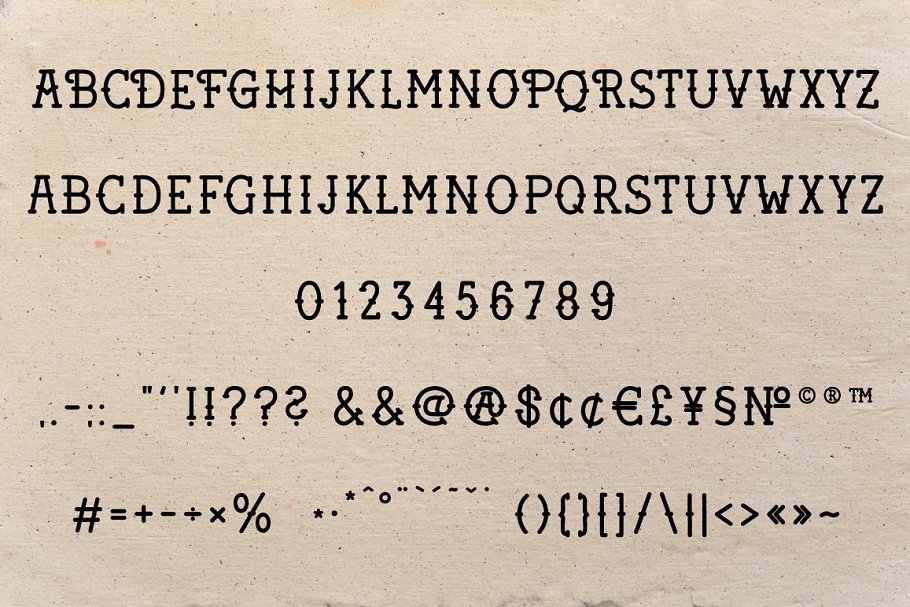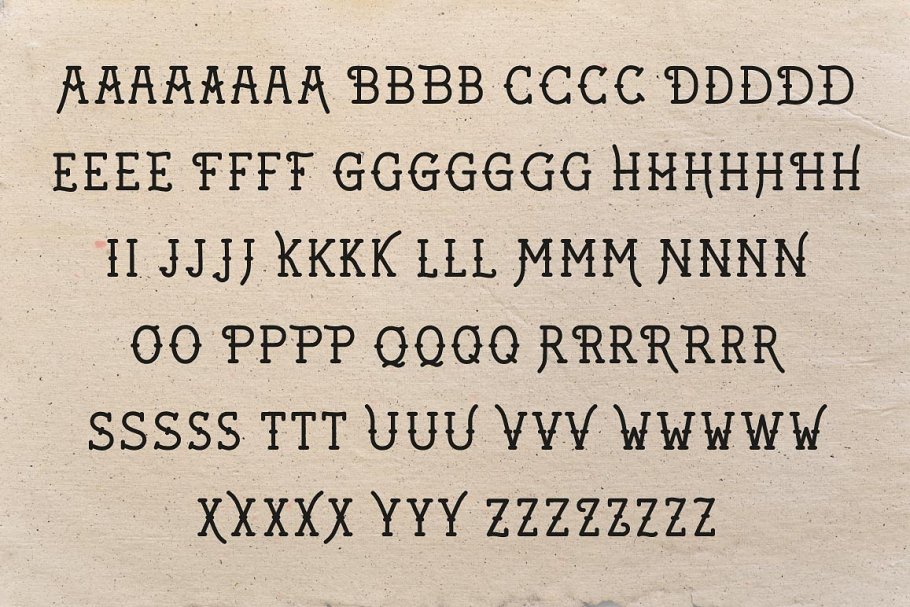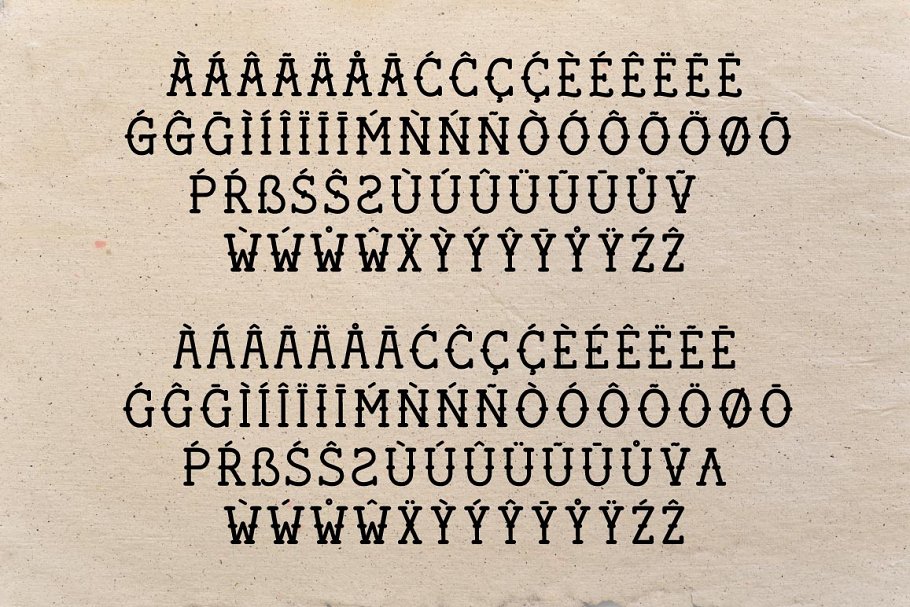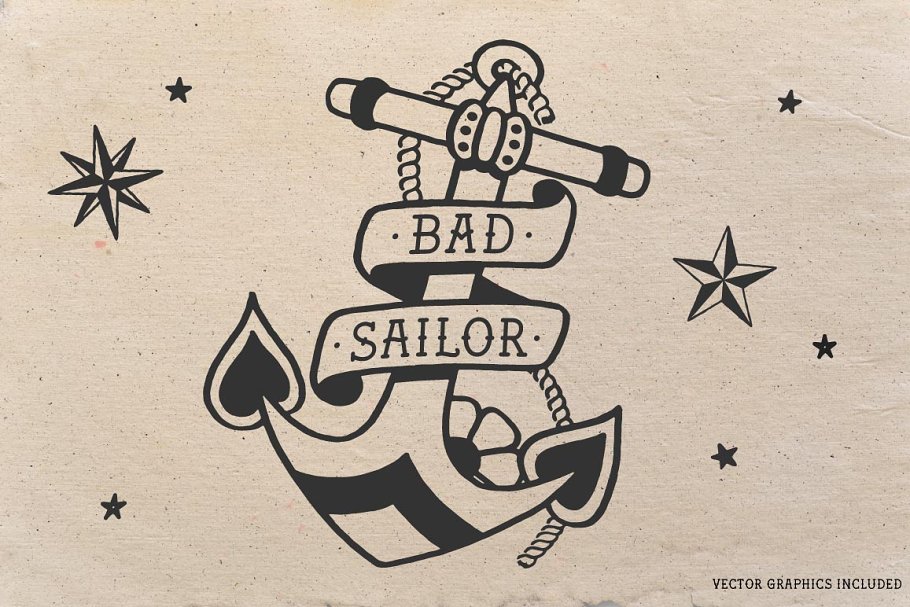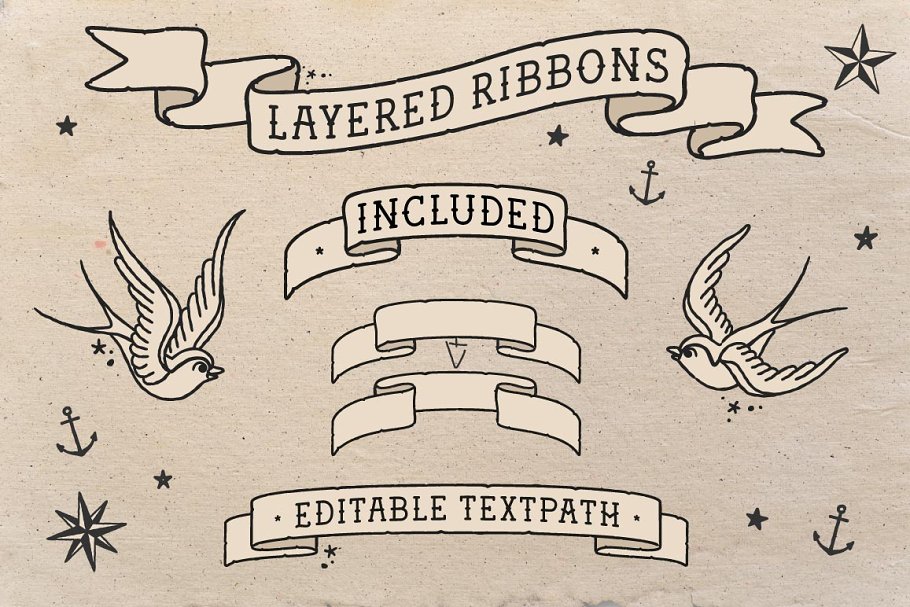
About the Bad Sailor Typeface Font
Hand Made Tattoo Style Font Thanks for checking out this hand drawn font, I hope you guys like it, What´s Inside? OTF Font Special CharactersAlternatesNumbers Bonus Vector Graphics (AI, EPS, Standard License)Character Map (Ai & PDF, simply copy & paste Special Characters)Works on Mac and PCThis Font is created with Pencil & Paper, Adobe Illustrator and Fontself, a very helpful tool